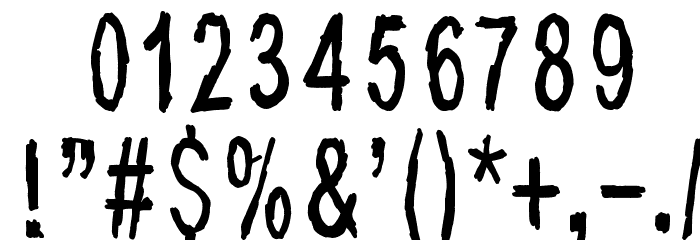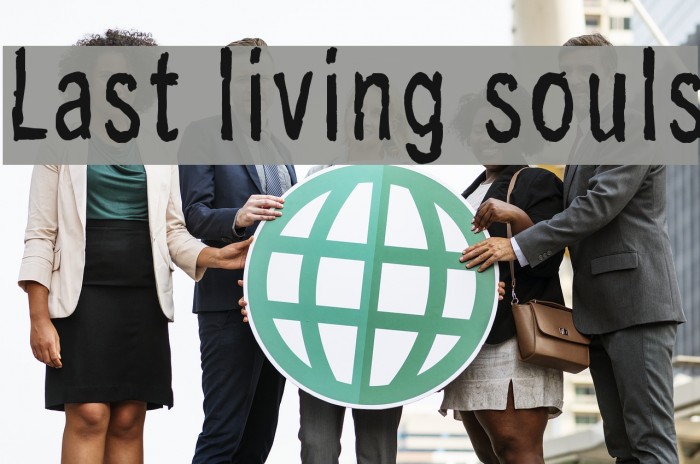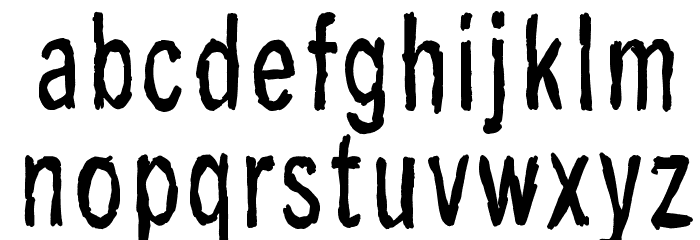
Last living souls Font
This font features a rugged, hand-drawn aesthetic with uneven strokes and a slightly distressed appearance. The uppercase and lowercase letters maintain a consistent style, characterized by their organic, imperfect lines that give a sense of authenticity and rawness. The numerals and special characters follow the same design principles, adding to the cohesive look of the font. Its unique style makes it stand out, offering a blend of artistic flair and readability. The font's irregularities and textured appearance suggest a handcrafted feel, making it suitable for projects that require a personal touch or a vintage vibe.
A rugged, hand-drawn font with a distressed, organic look.
• Proposed Projects: Ideal for branding, posters, album covers, and any design needing a handcrafted or vintage touch.
• Overall Style: Vintage
• Use Case: Logos, Posters, Artistic projects